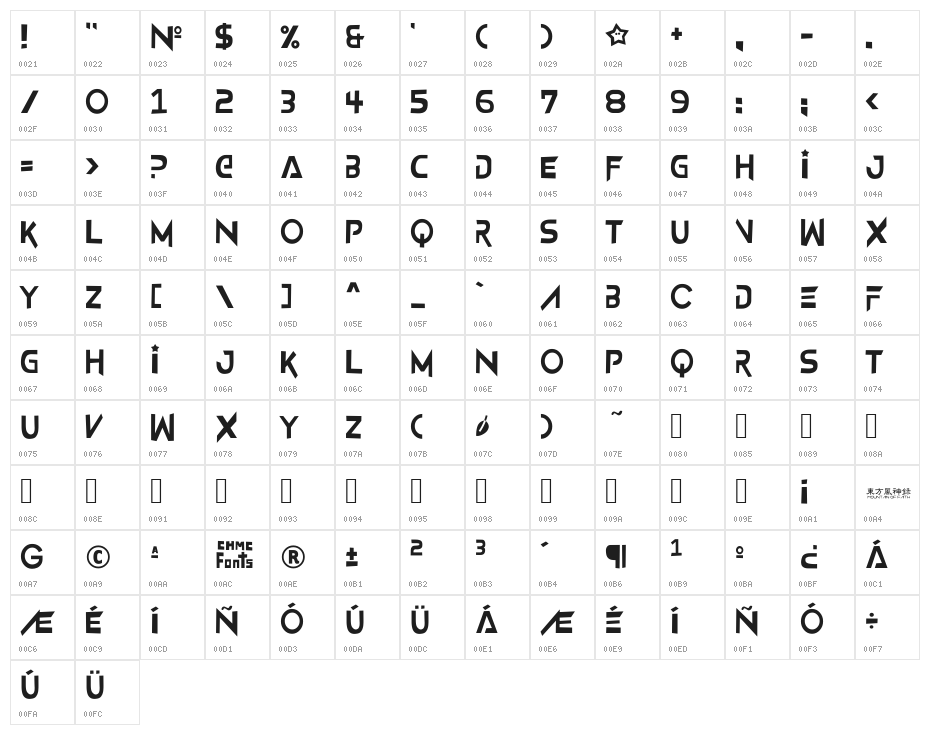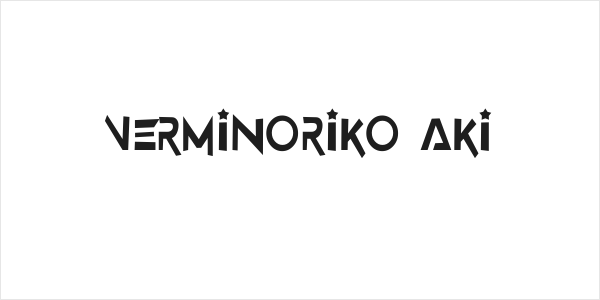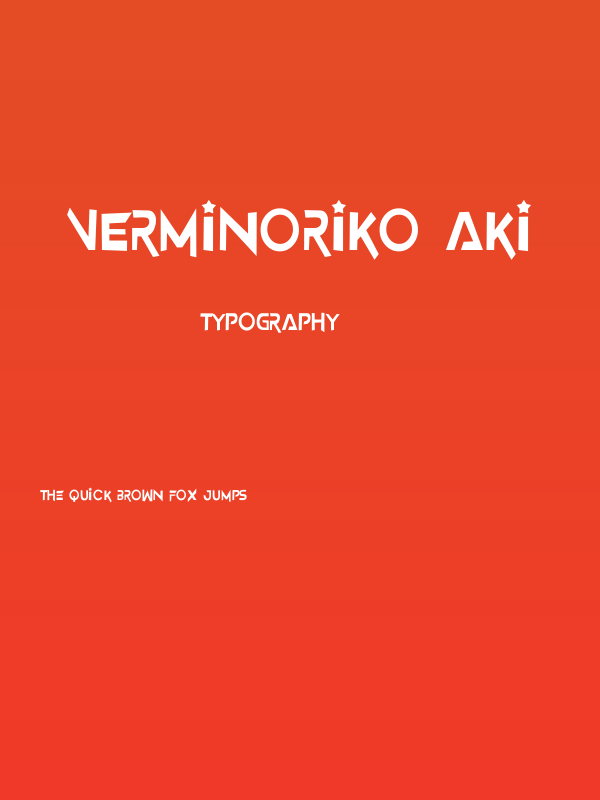
Verminoriko Aki Font
Verminoriko Aki Description
This font features a bold and striking design with angular, geometric shapes that give it a futuristic and edgy appearance. The characters are crafted with sharp edges and unique cutouts, creating a sense of movement and dynamism. The uppercase letters are particularly distinctive, with some incorporating star-like embellishments that add a playful touch. The numbers and special characters maintain the same bold and angular style, ensuring consistency across all elements. This font's design is both modern and artistic, making it ideal for projects that require a strong visual impact.